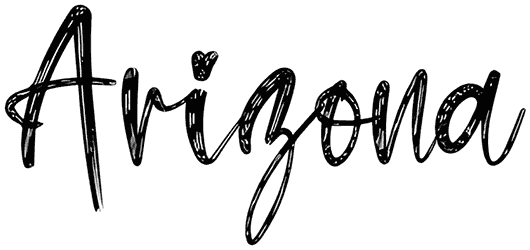
The Liquid Font
The Liquid, a brush font, is brilliant for creating your natural, hand-drawn typography! This graffiti font as it provides bold artsy characters can add a playful, friendly feel with a stylish paintbrush look.
The Liquid offers a cursive handwriting display that is creative, plus a gorgeous set of letterforms that are well organized for easier utilization. Although it has difficult readability, its beauty is worth the risk, try it in books, flyers, logos, branding, and CD covers for pleasing typography!